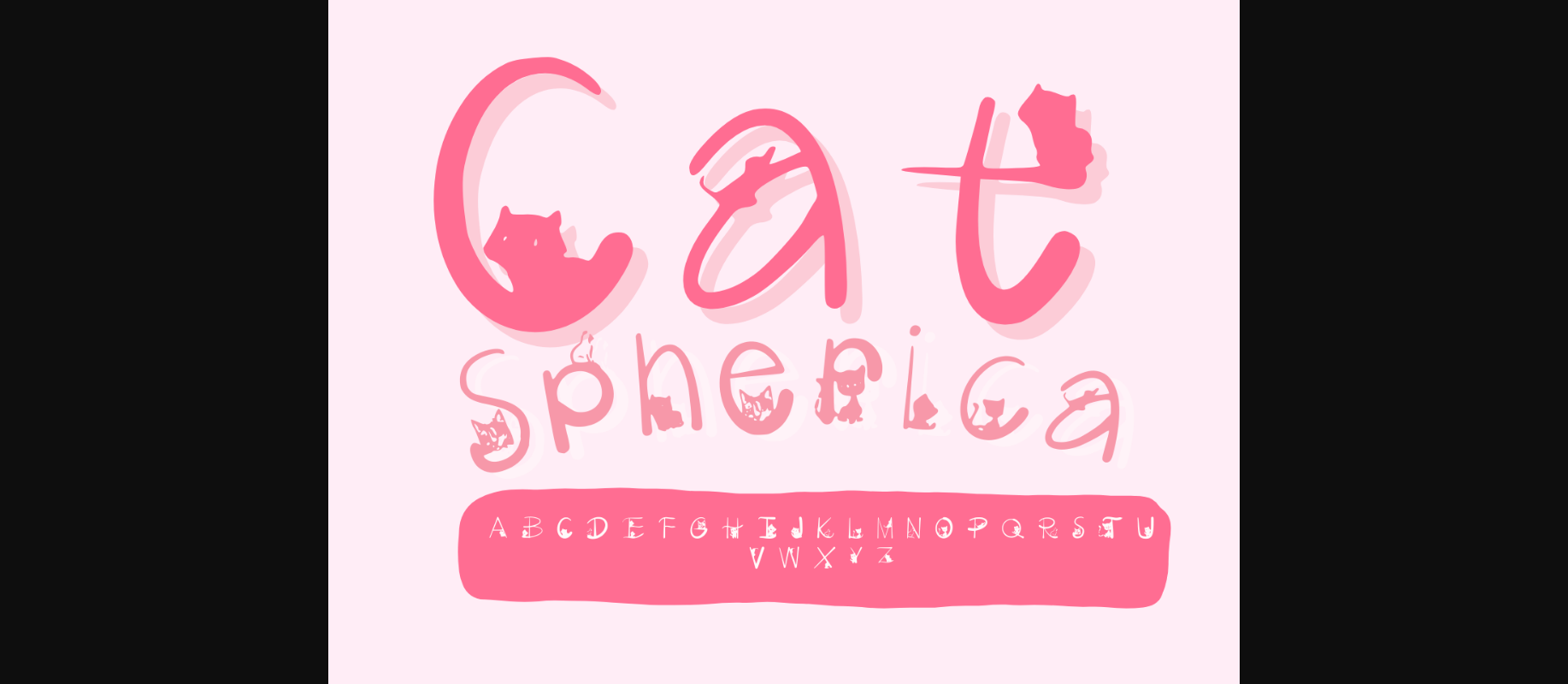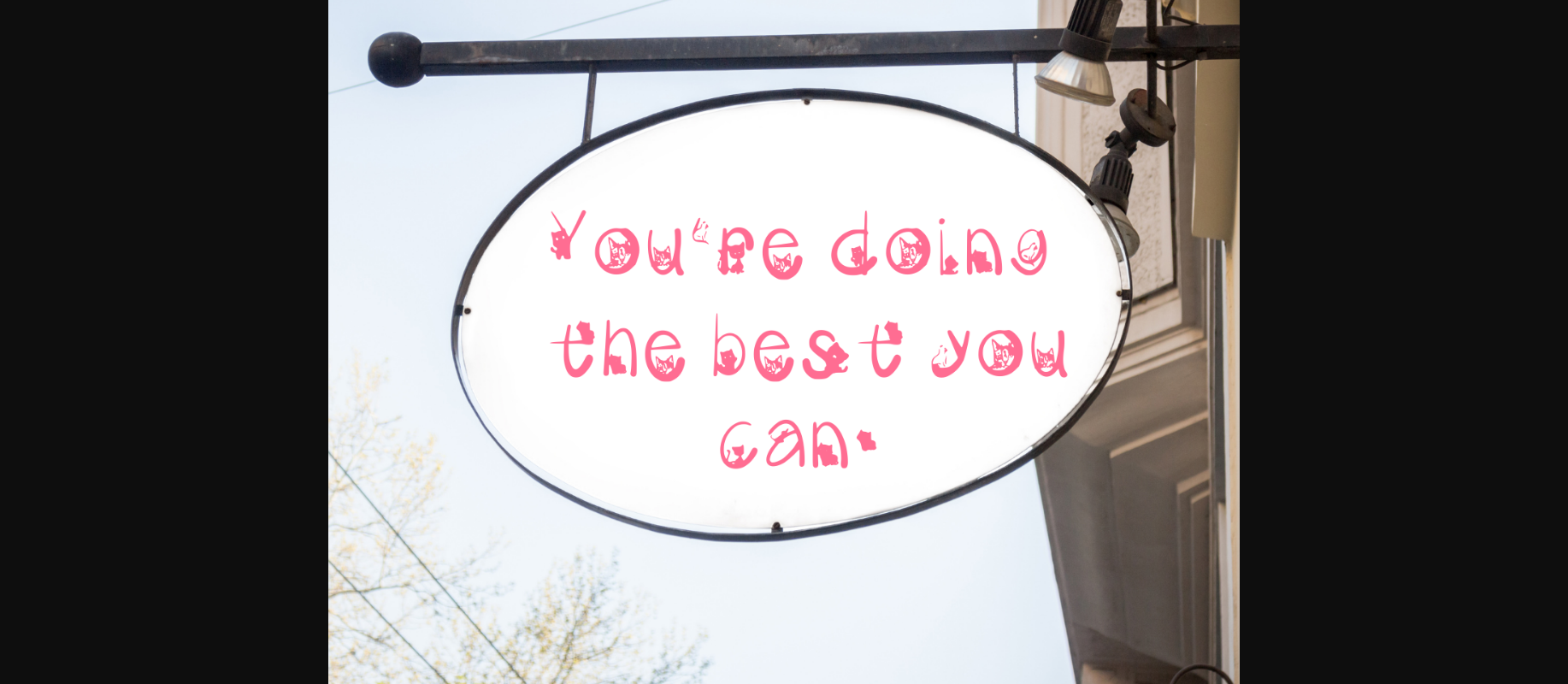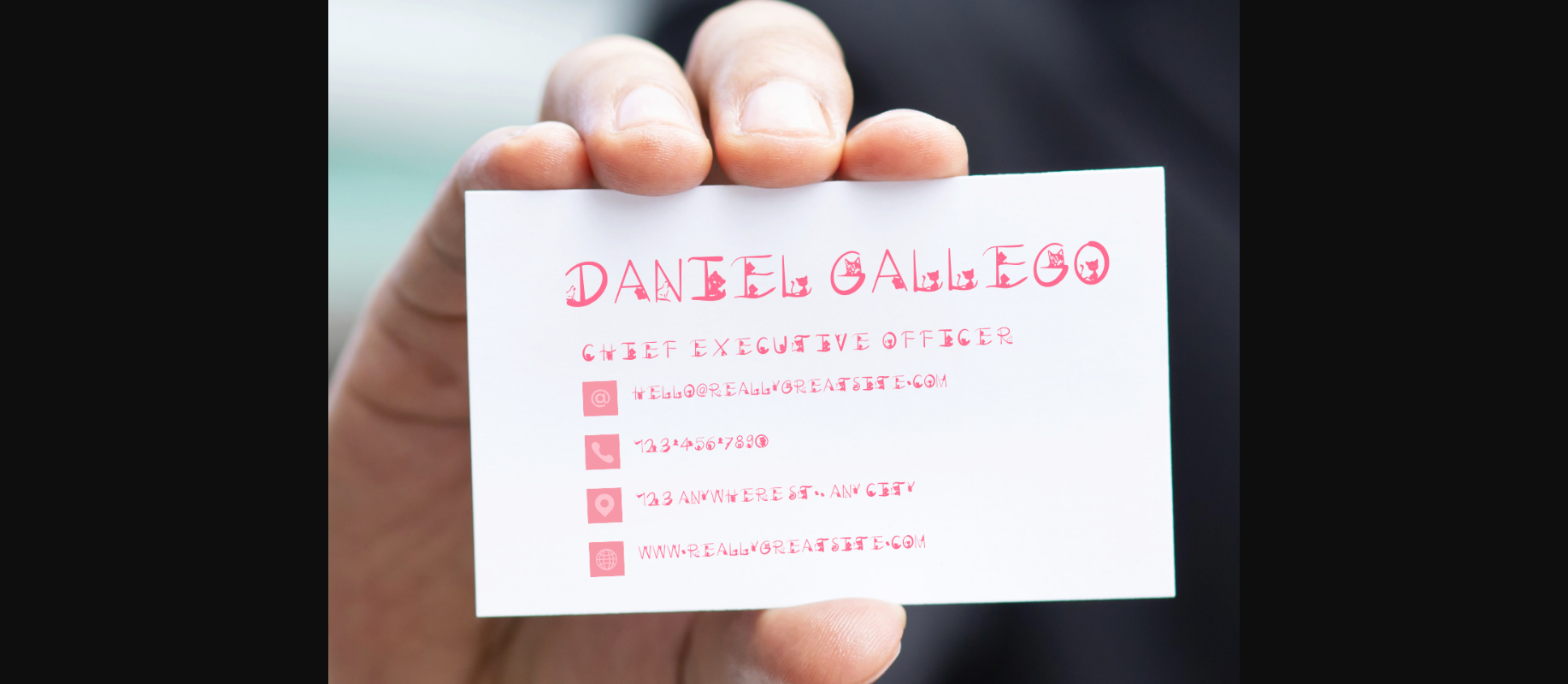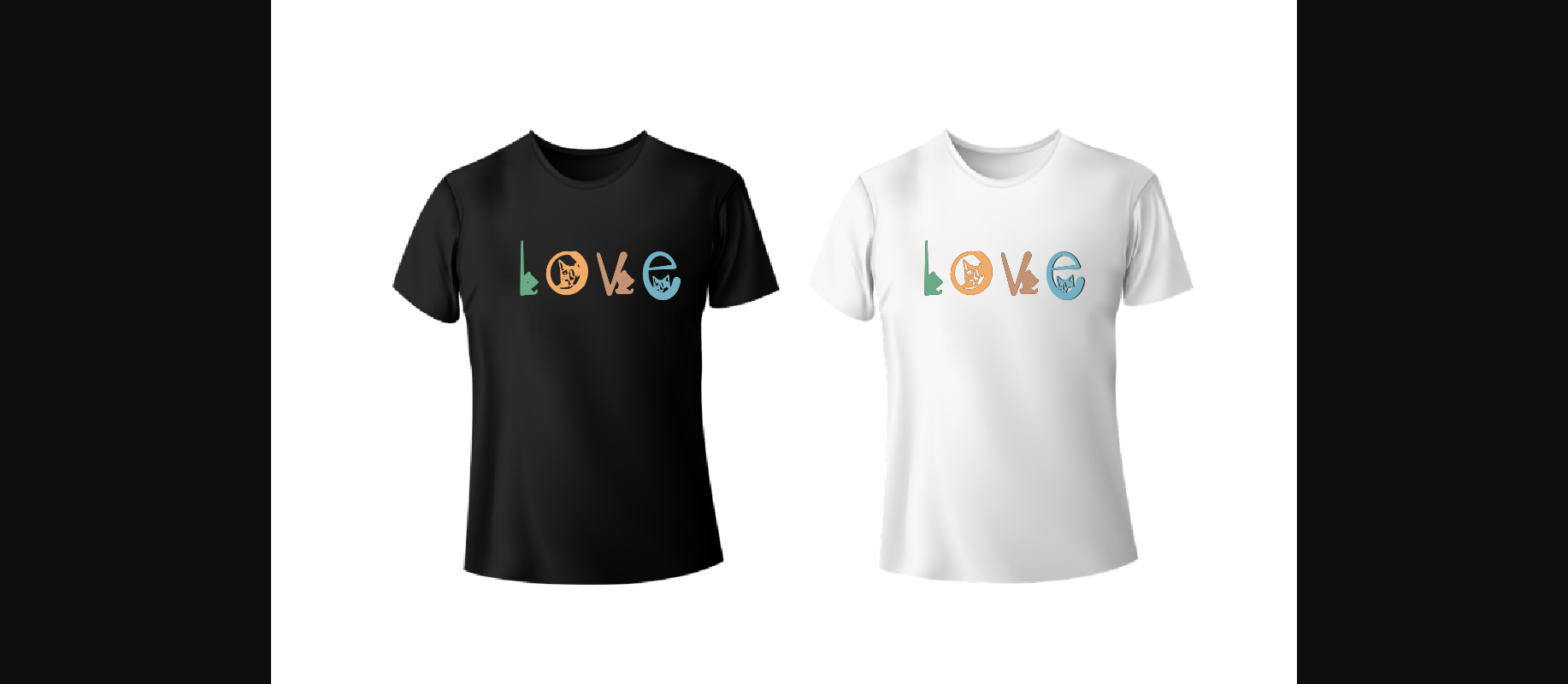
Cat Spherical Font
About Cat Spherical Font
Cat Spherical is a fun and adorable decorative font. Whimsical and a bit quirky, this font will brighten up each of your designs. Add it confidently to your projects, and you will love the results.